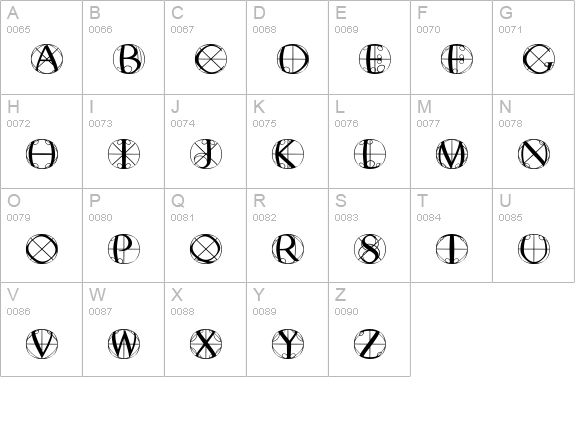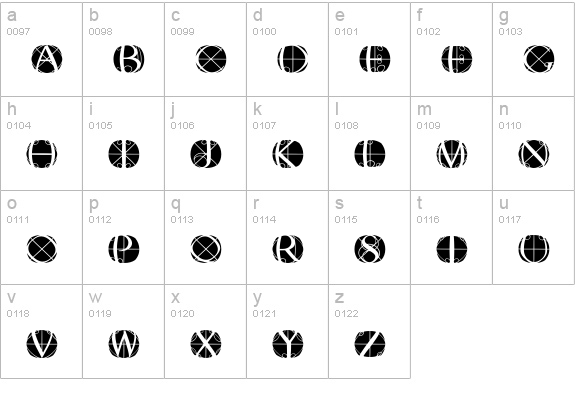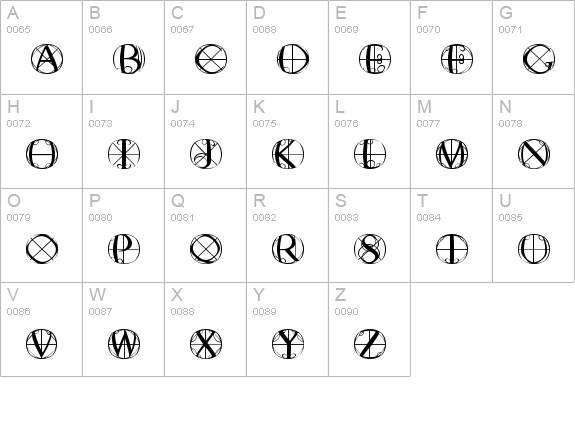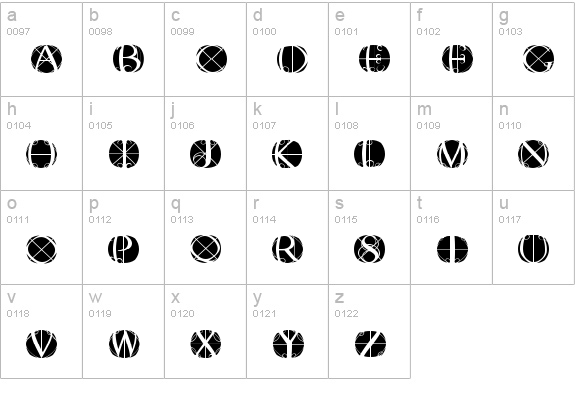
RodgauerFisheyes Font Details
RodgauerFisheyes font is a unique and playful typeface that adds a touch of creativity to any design project. Its rounded, bubbly shapes give off a fun and friendly vibe, making it perfect for projects that require a lighthearted and cheerful aesthetic. The font features a series of charming fisheye-like circles within each letter, adding an element of quirkiness and originality. What makes RodgauerFisheyes font even more appealing is that it is completely free to download at FontsMarket.com. This means that you can easily access this delightful font without breaking the bank. Whether you're working on a poster, invitation, logo, or any other design project, RodgauerFisheyes font is sure to captivate your audience and make your designs stand out. Download it today and let your creativity shine!